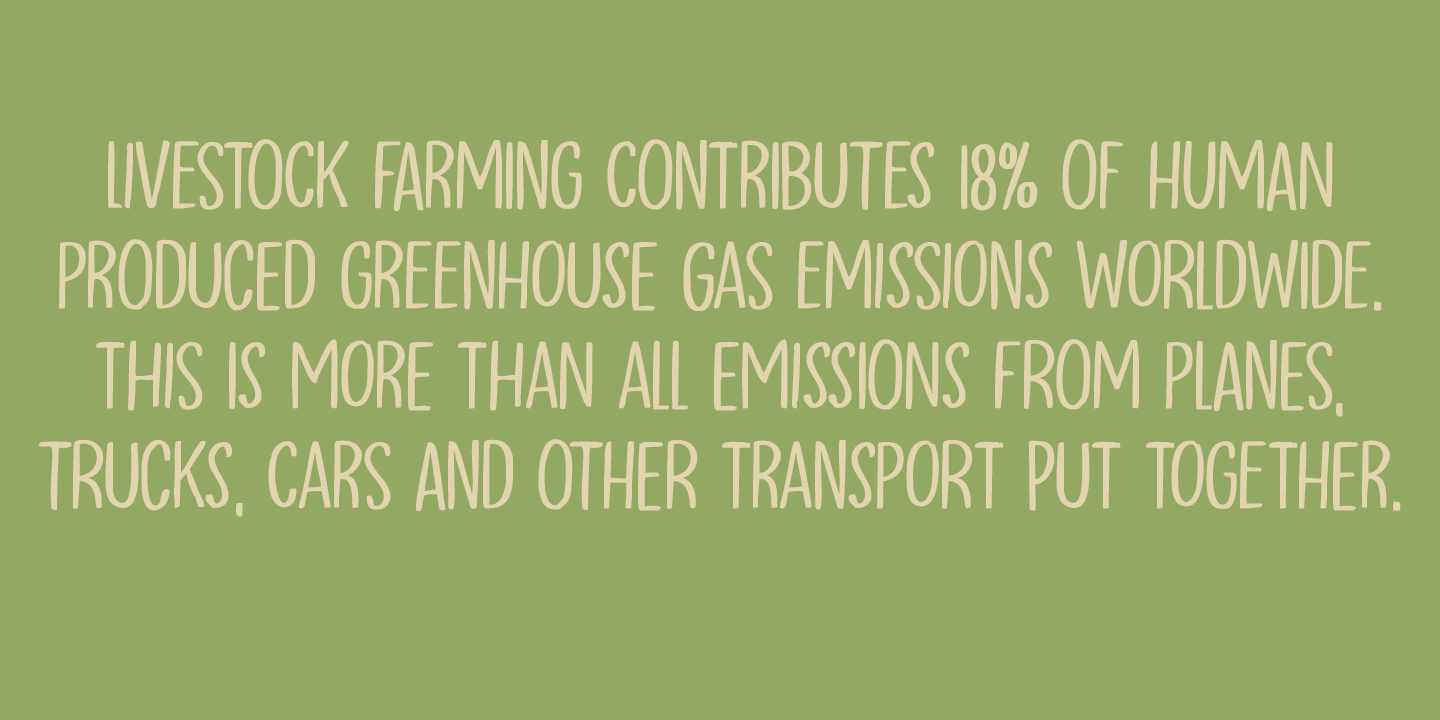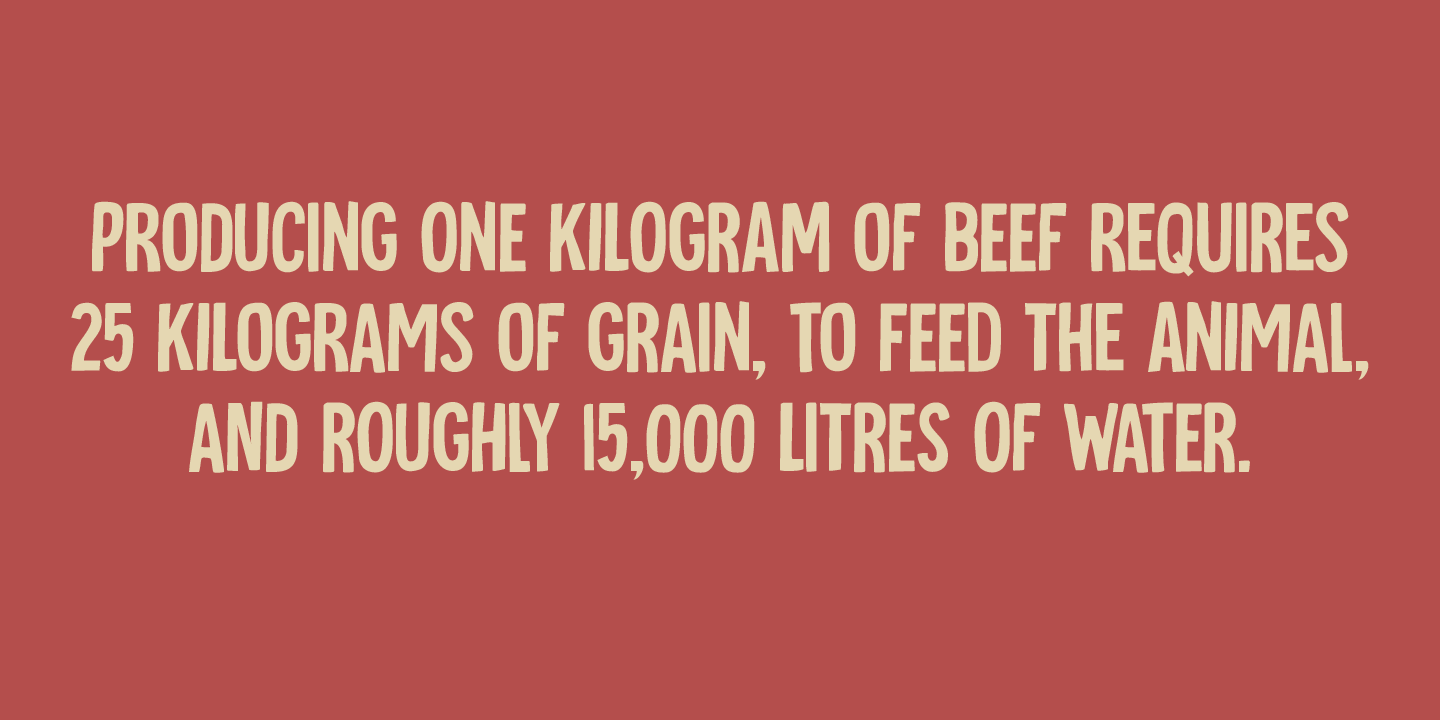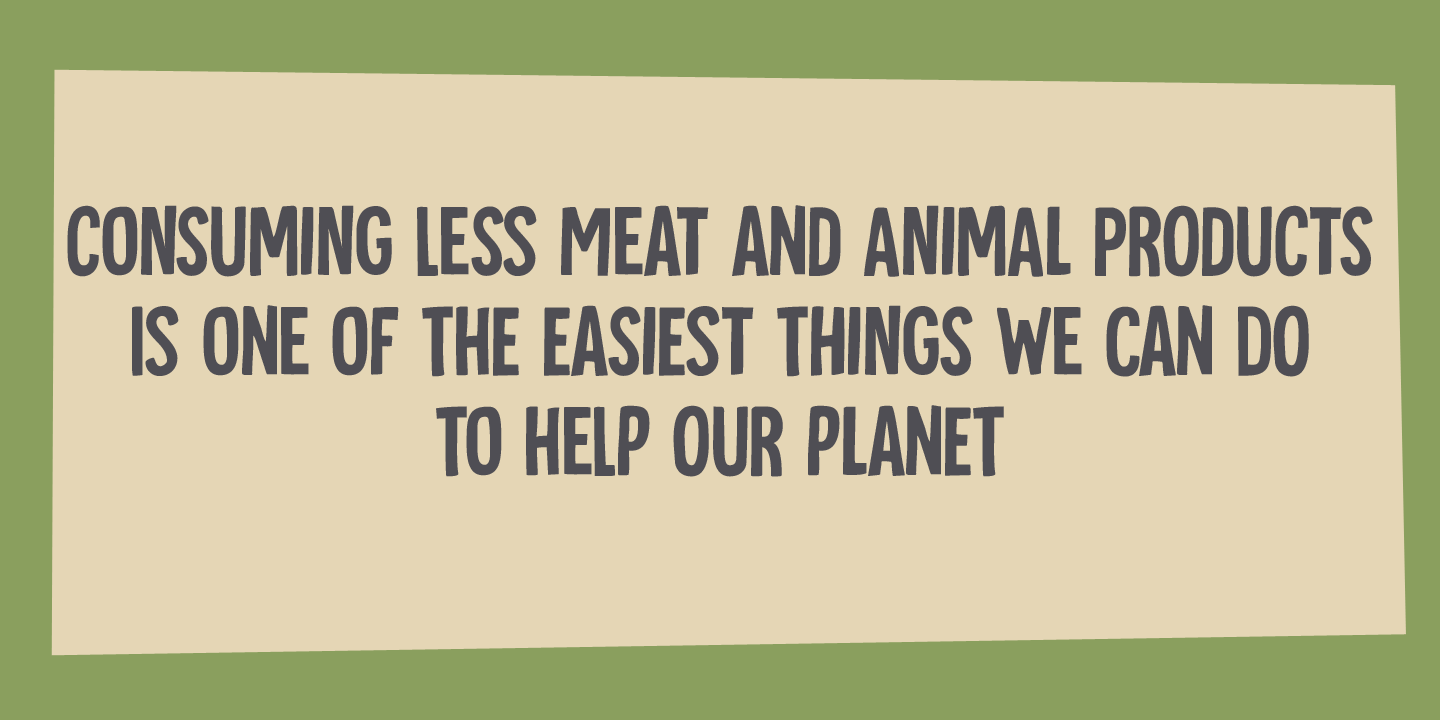
Tournedos
The other day, I was cooking a curry and I suddenly realised that we, as a family, eat a lot of meat. At home we do like meat, but given the state our world is in right now, we cannot continue eating meat like there is no tomorrow. As a result, I am hunting the internet right now for good vegetarian recipes (if you have one you?d like to share, then please contact me!).
Tournedos is a beefy font family: a chunky all caps set of fonts - and a leaner set to counter and complement this rather heavy dish.